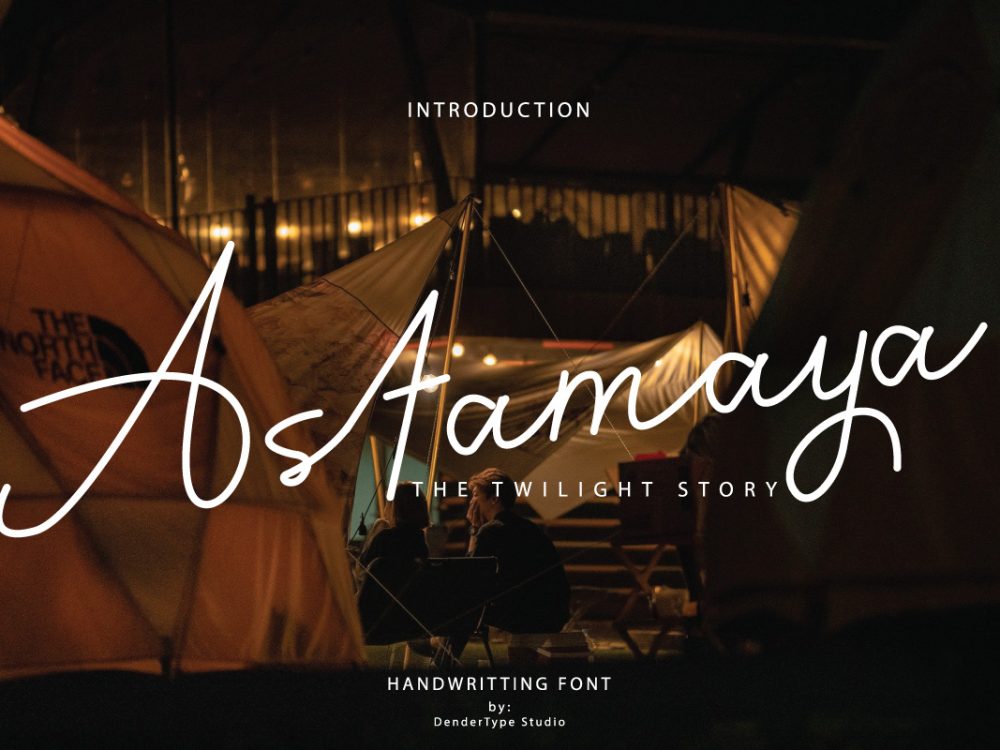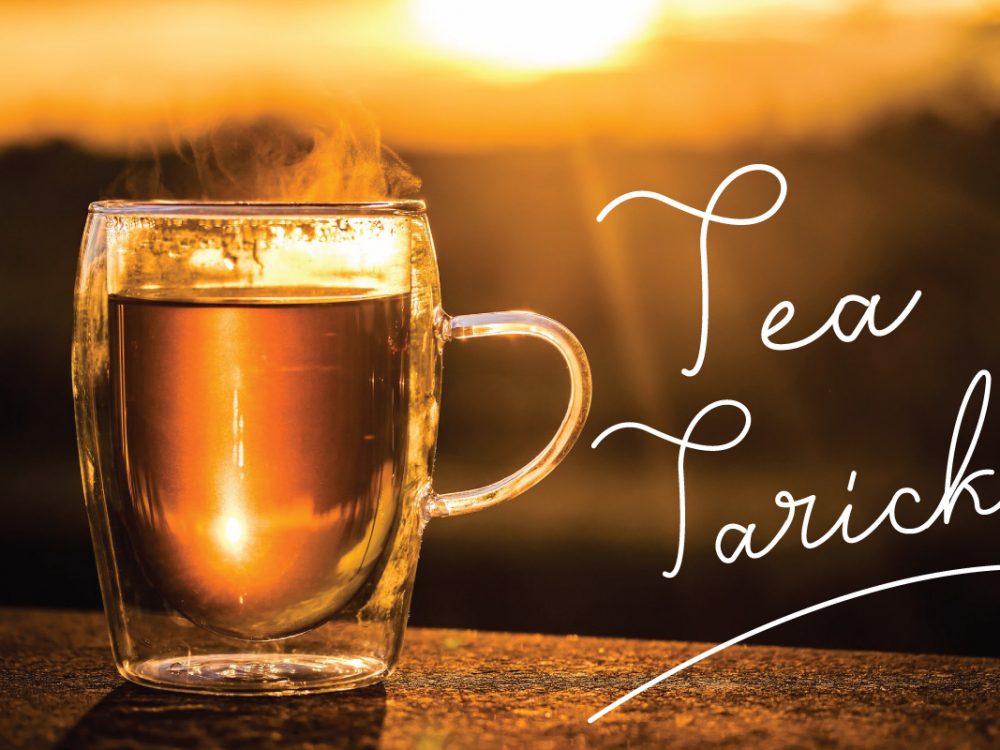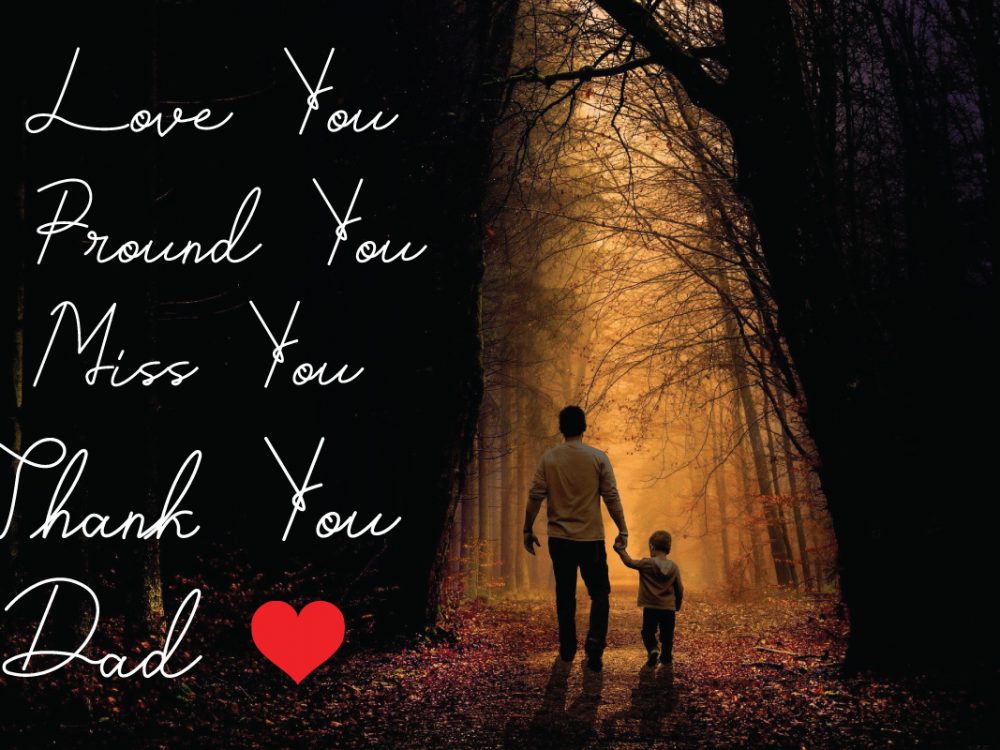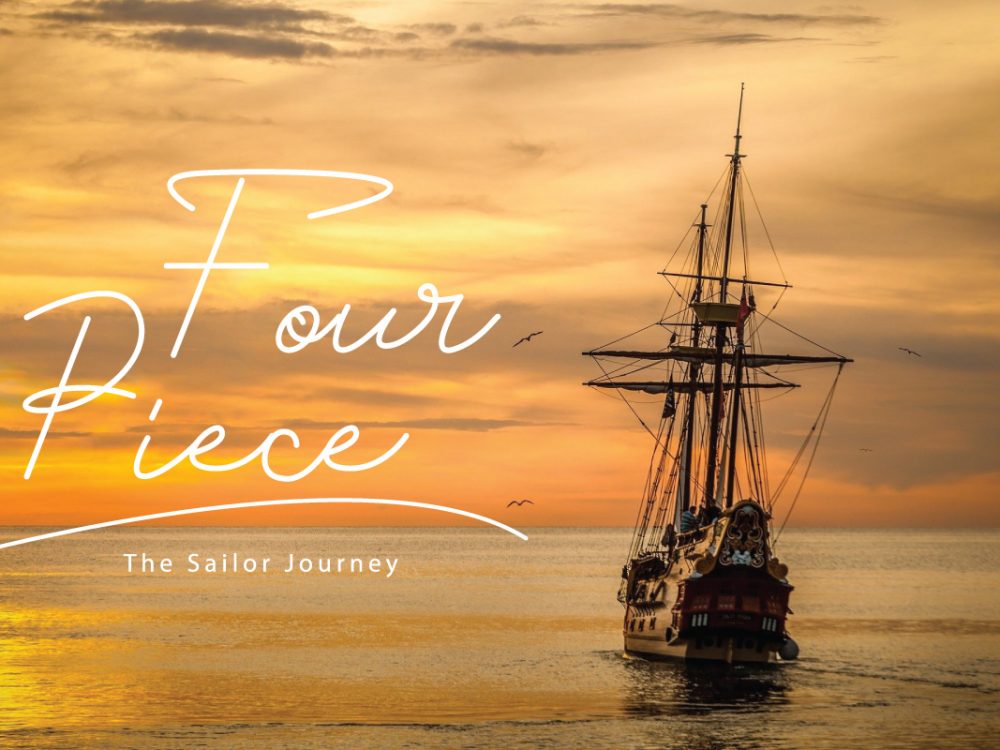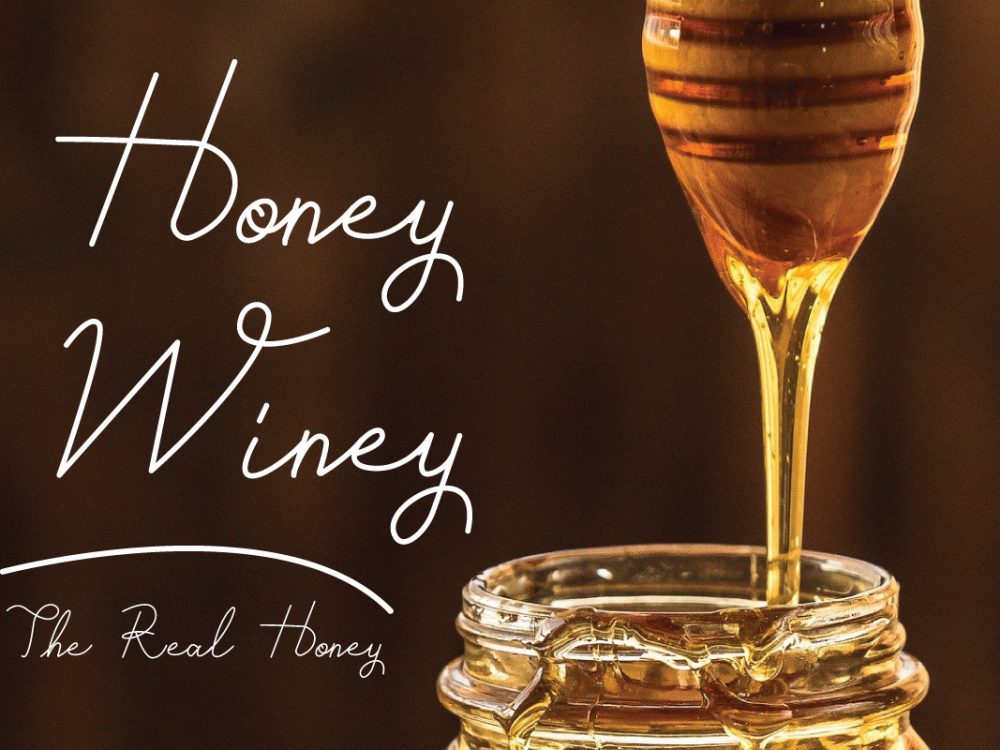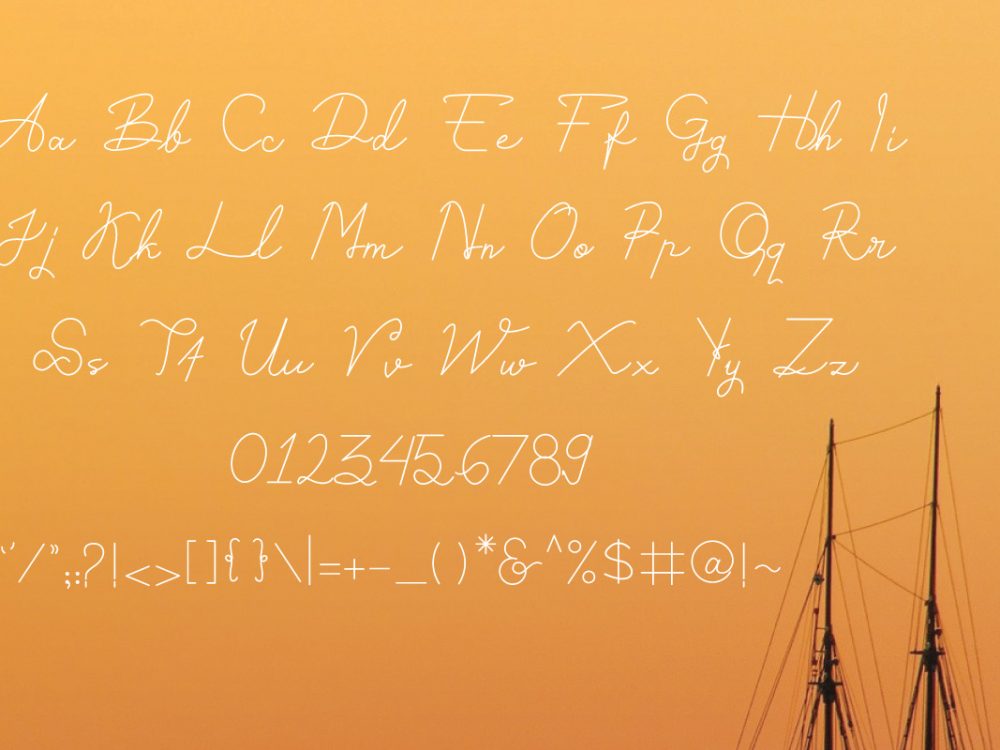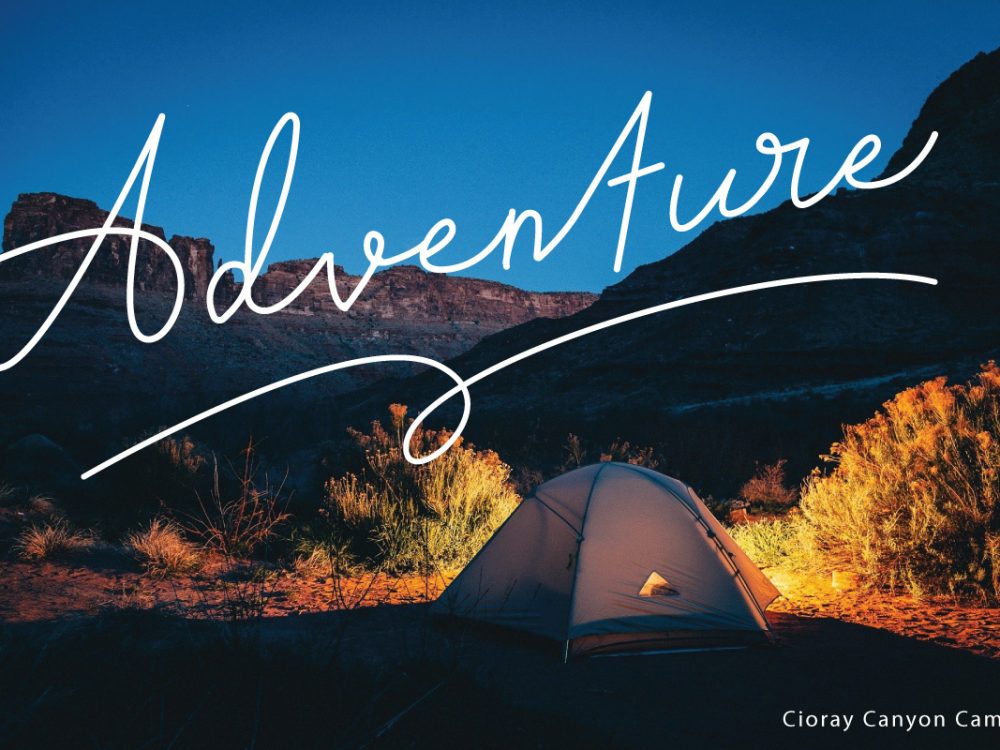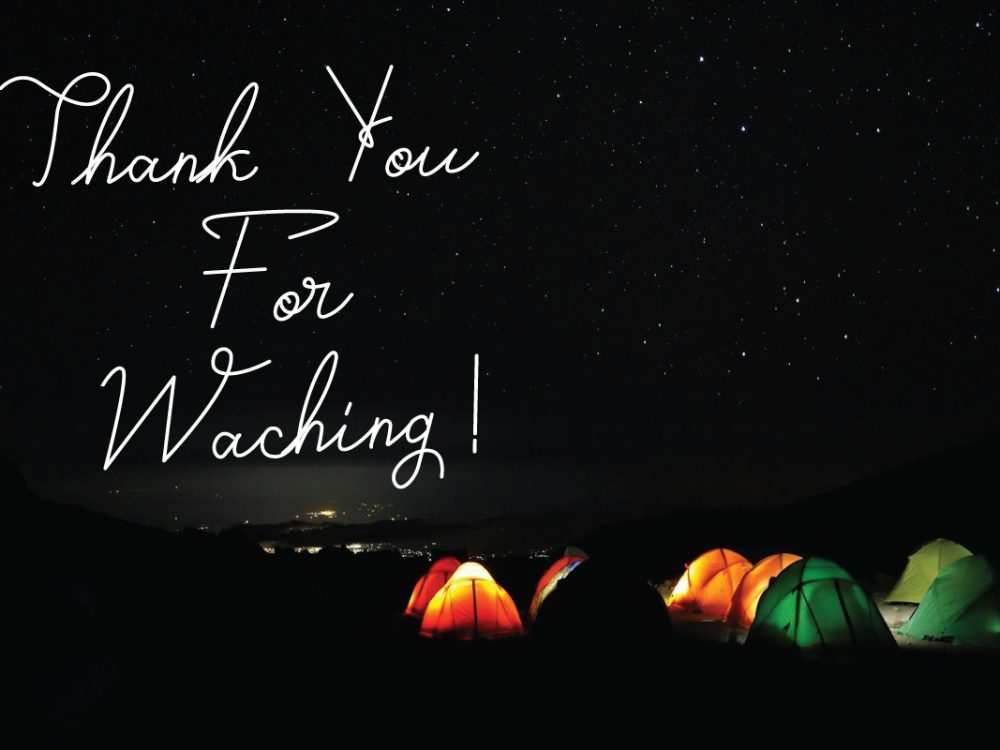
Astamaya Free Font
Astamaya Free Font is an interesting and memorable handwritten font that sets itself apart from other fonts in a modern style. It has beautiful and well-balanced characters and as a result, it matches a wide pool of designs. This font is very suitable for a variety of design projects that require a quality scripting font. You can use this font to create memorable romantic posters, wedding invitations, greeting cards, branding, flyers, t-shirt and pillow prints, and more. If you like it don’t forget to check out the full version.